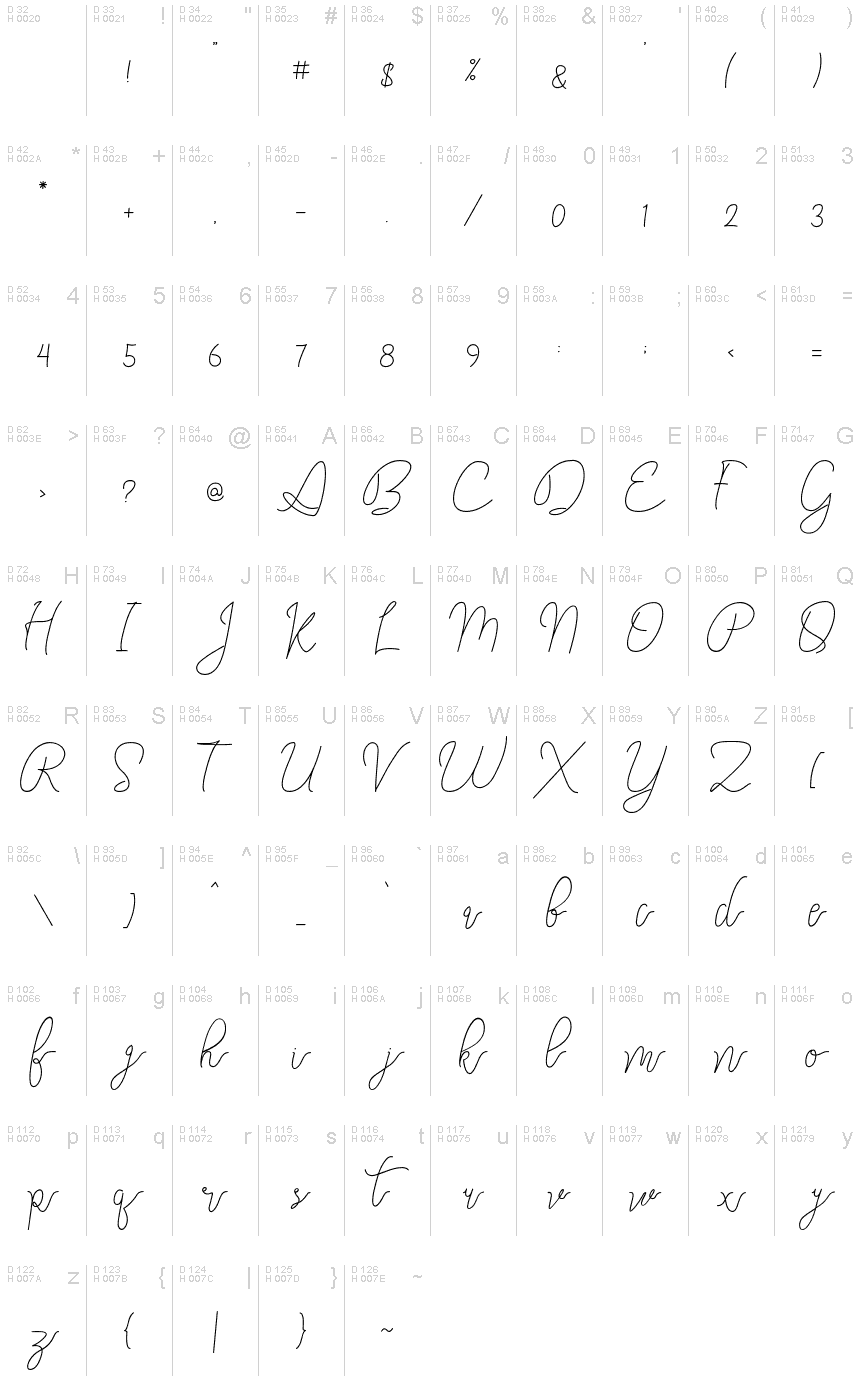
Eastpine
Eastpine is a beautiful handwritten script font designed by Faqih Fawaji. It's perfect for creating logos, posters, invitations, and other design projects.